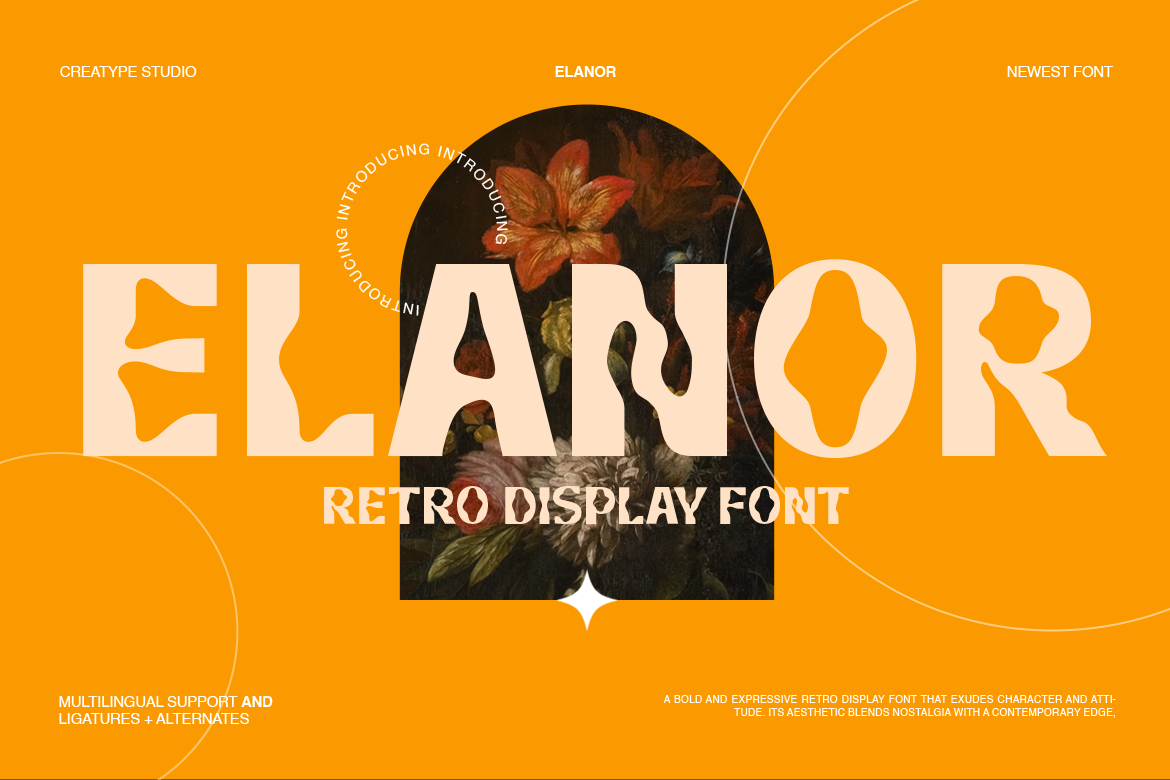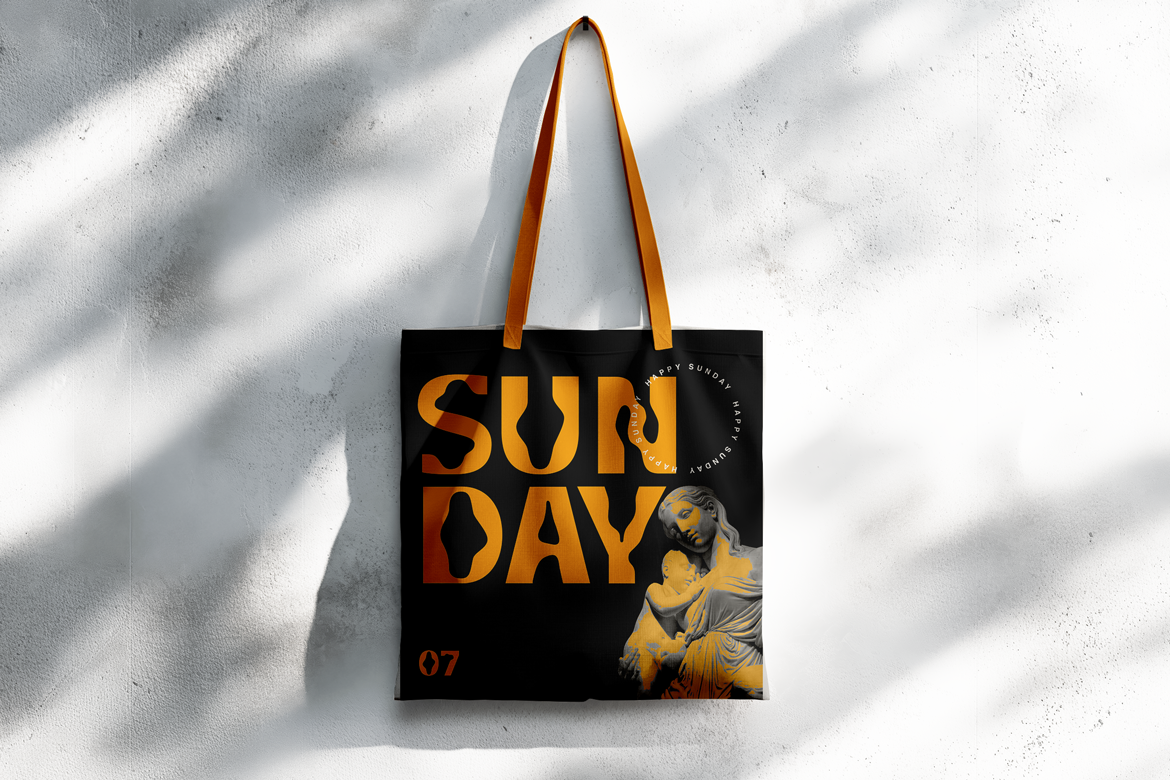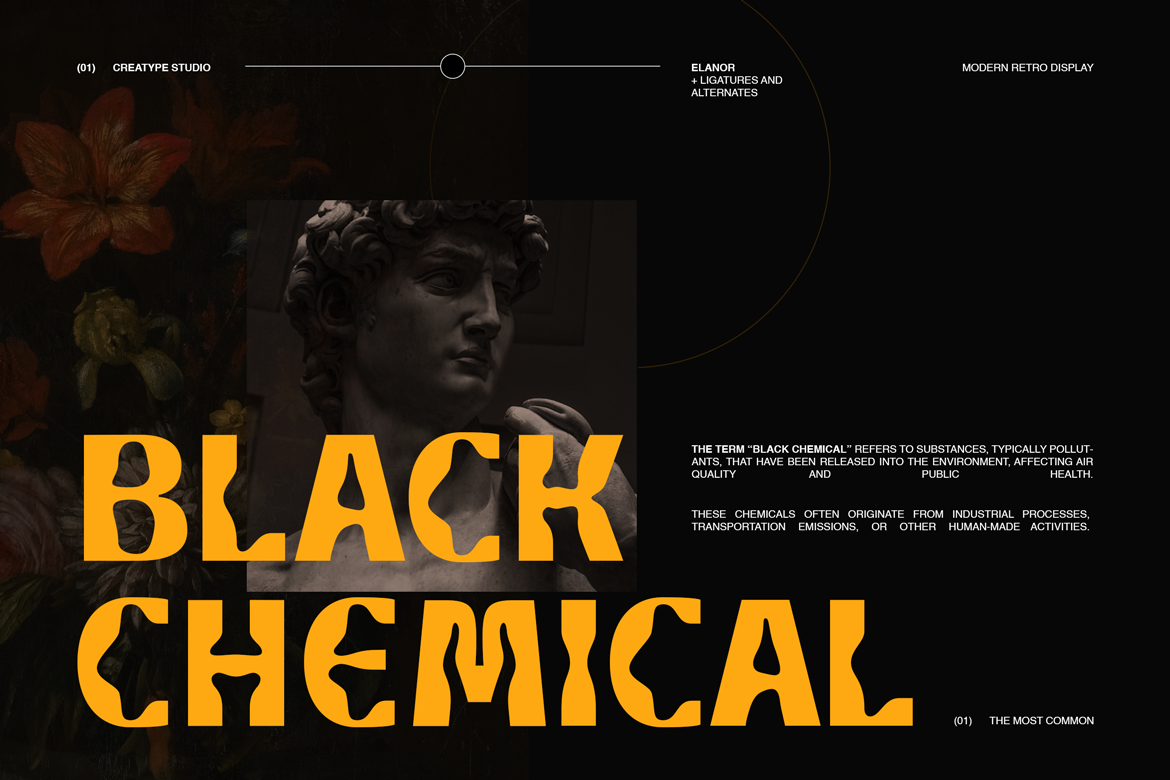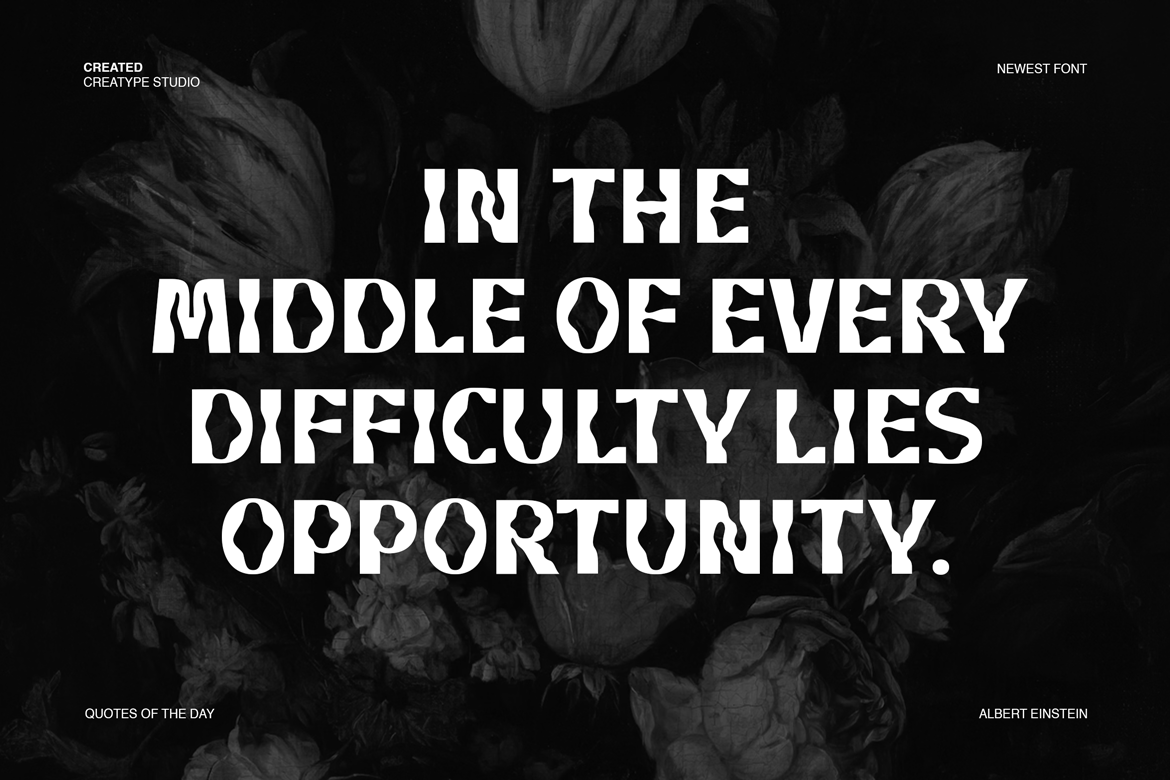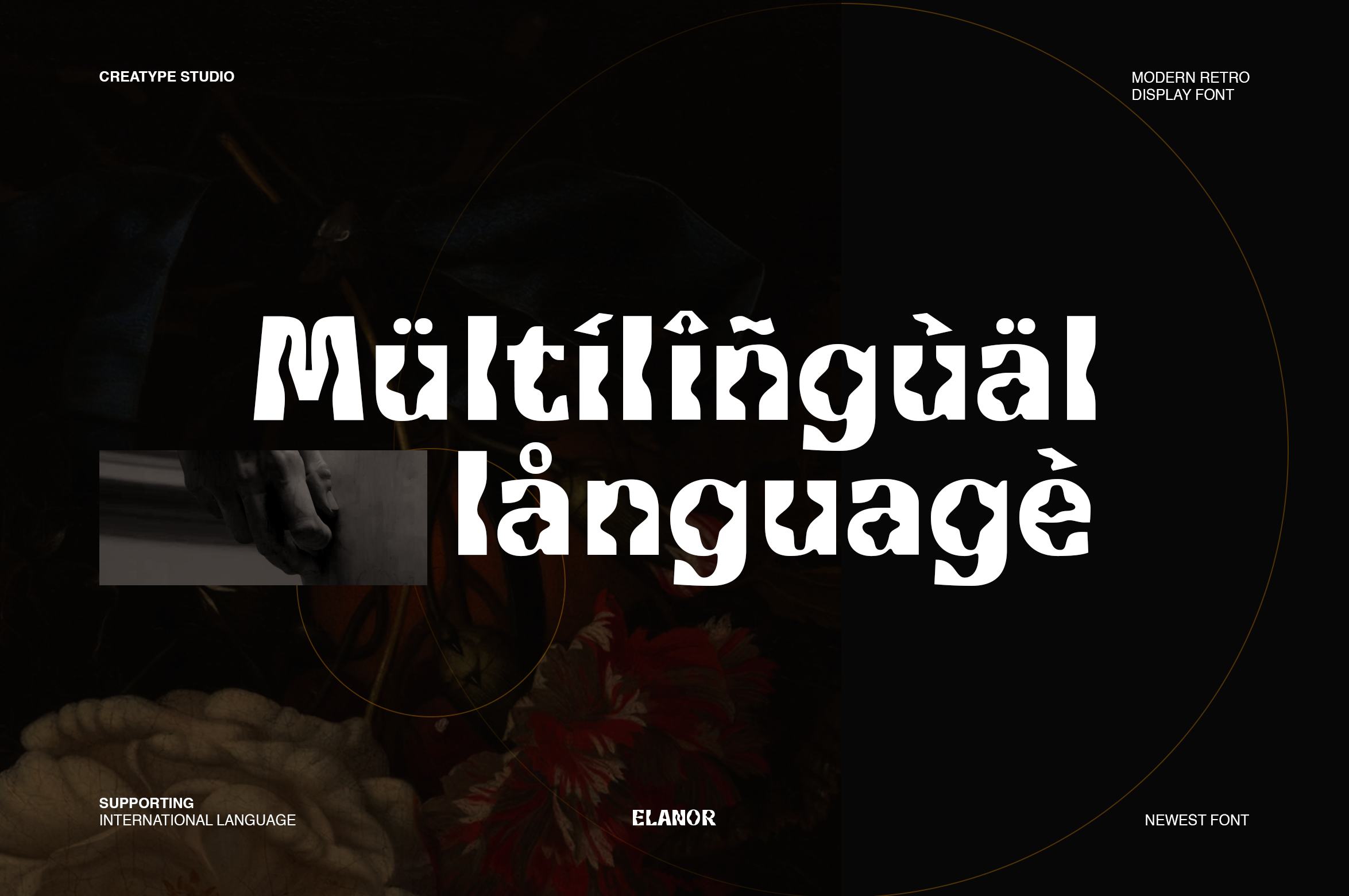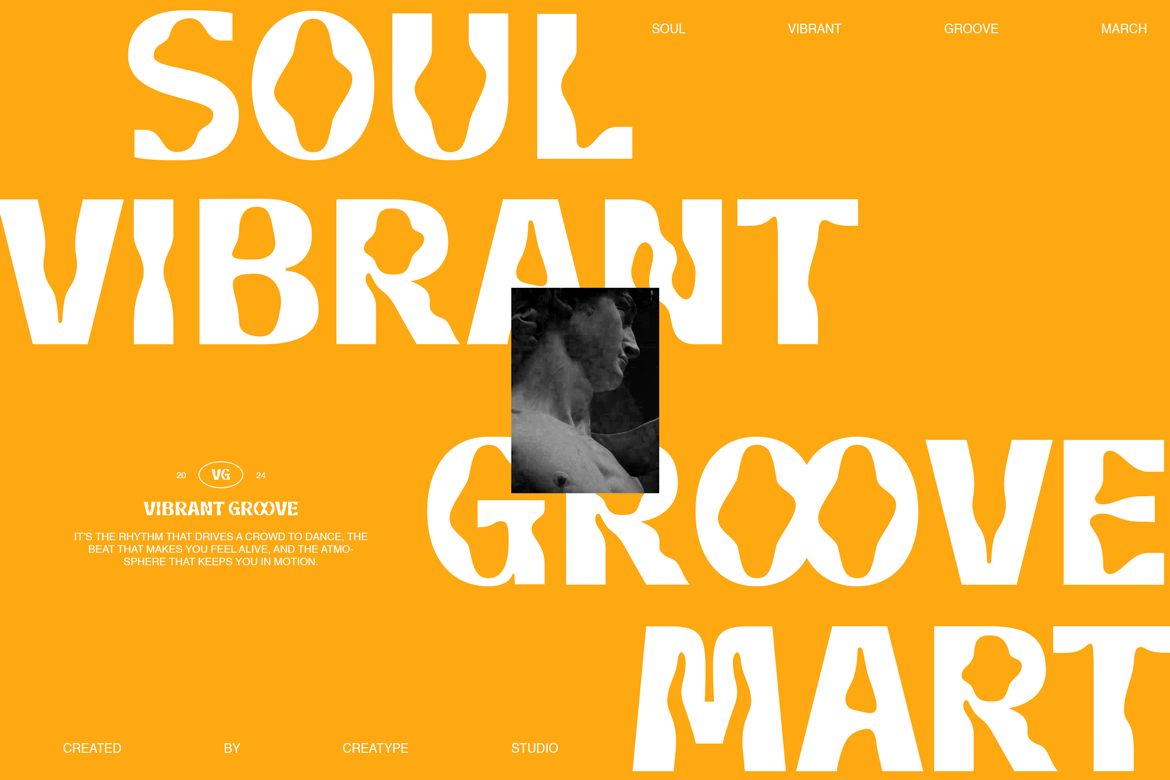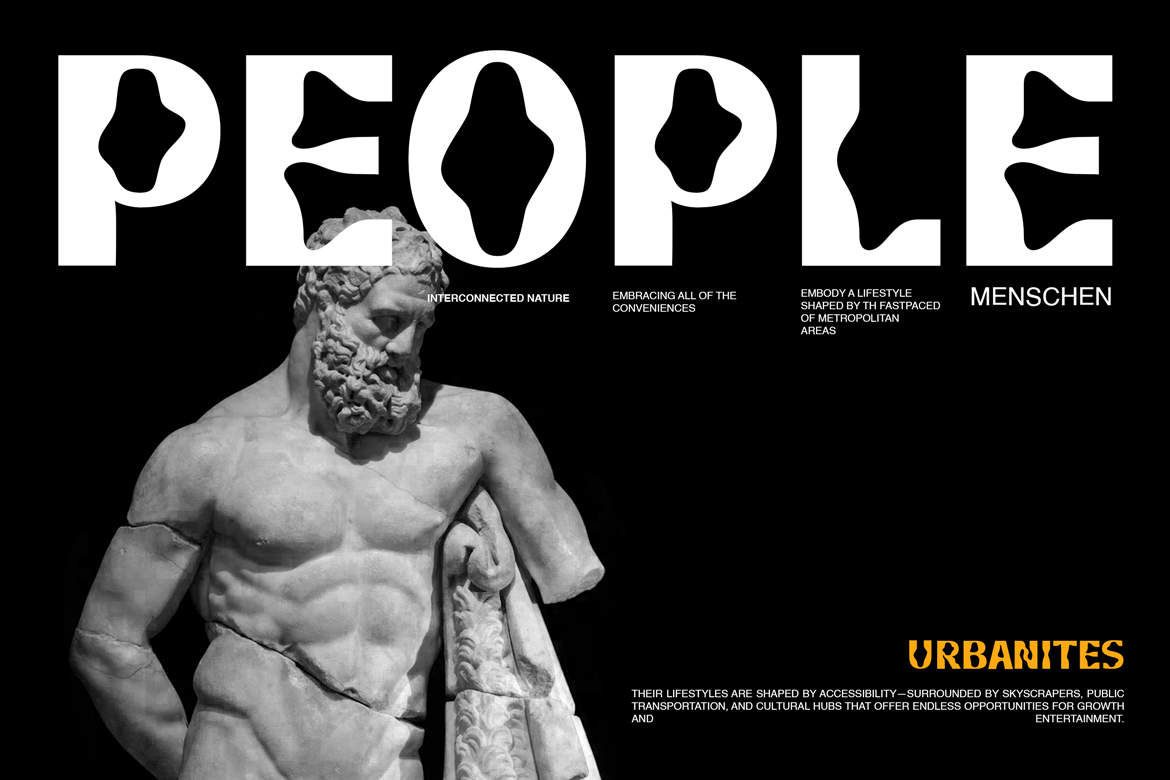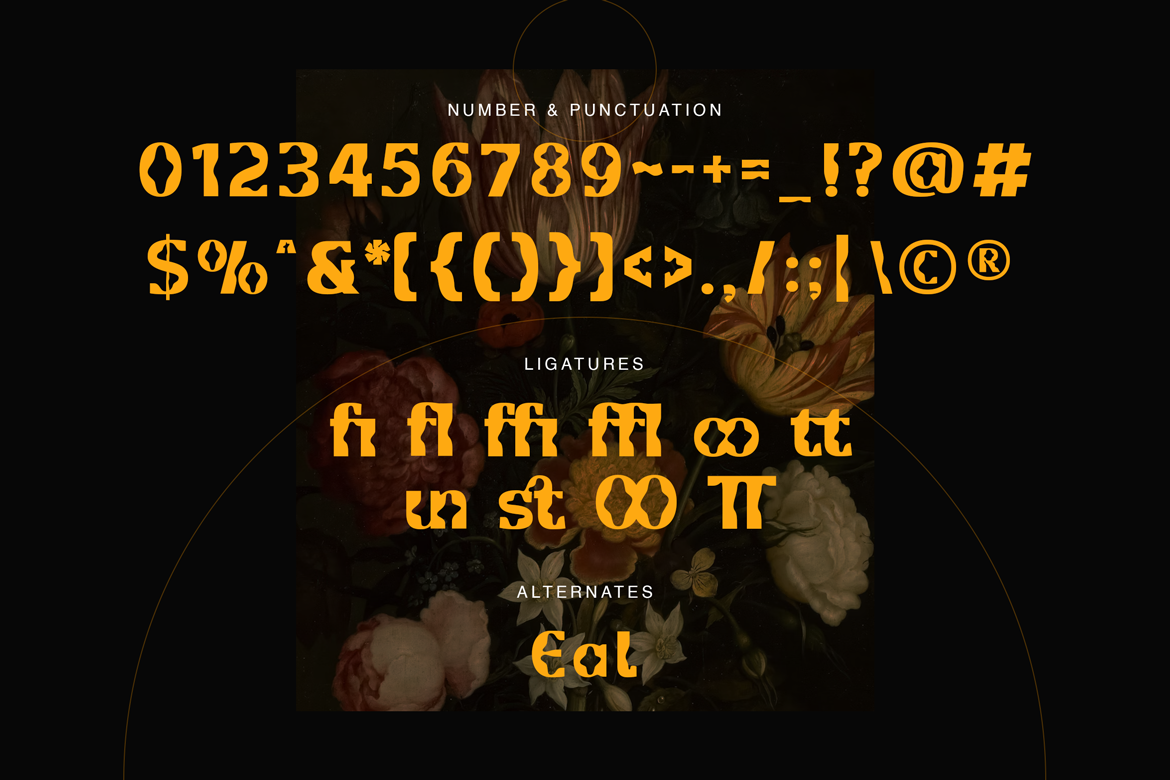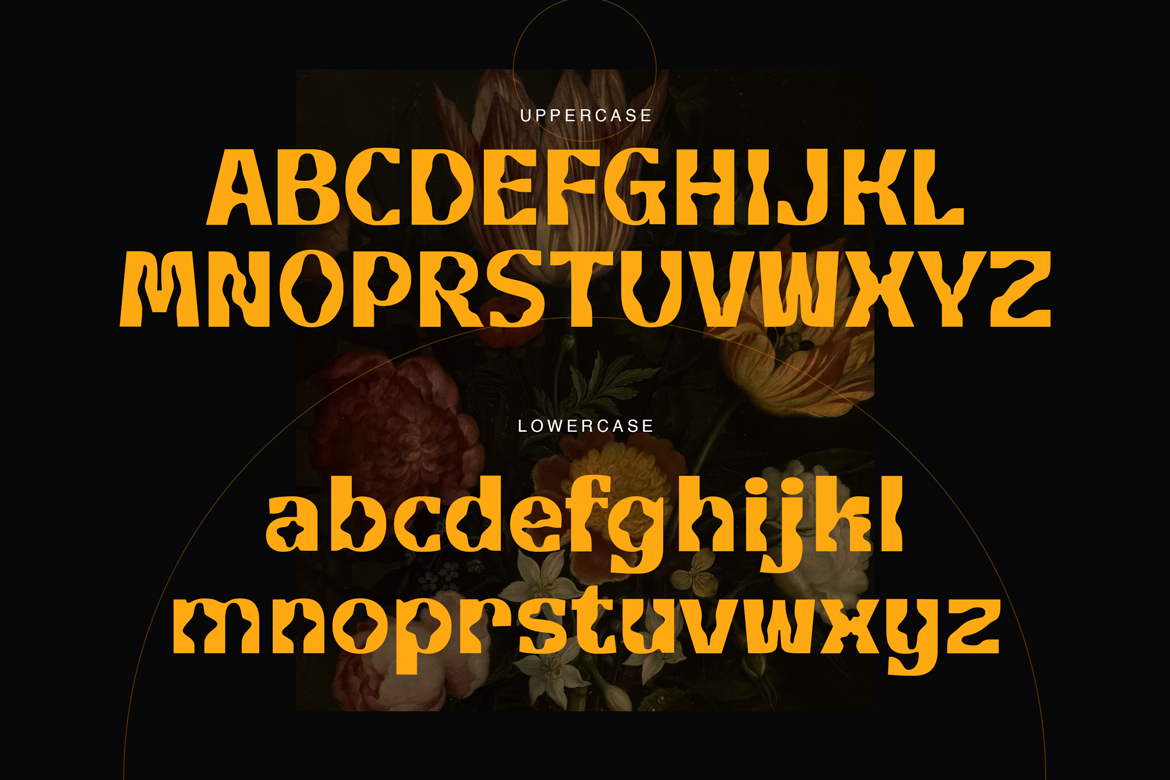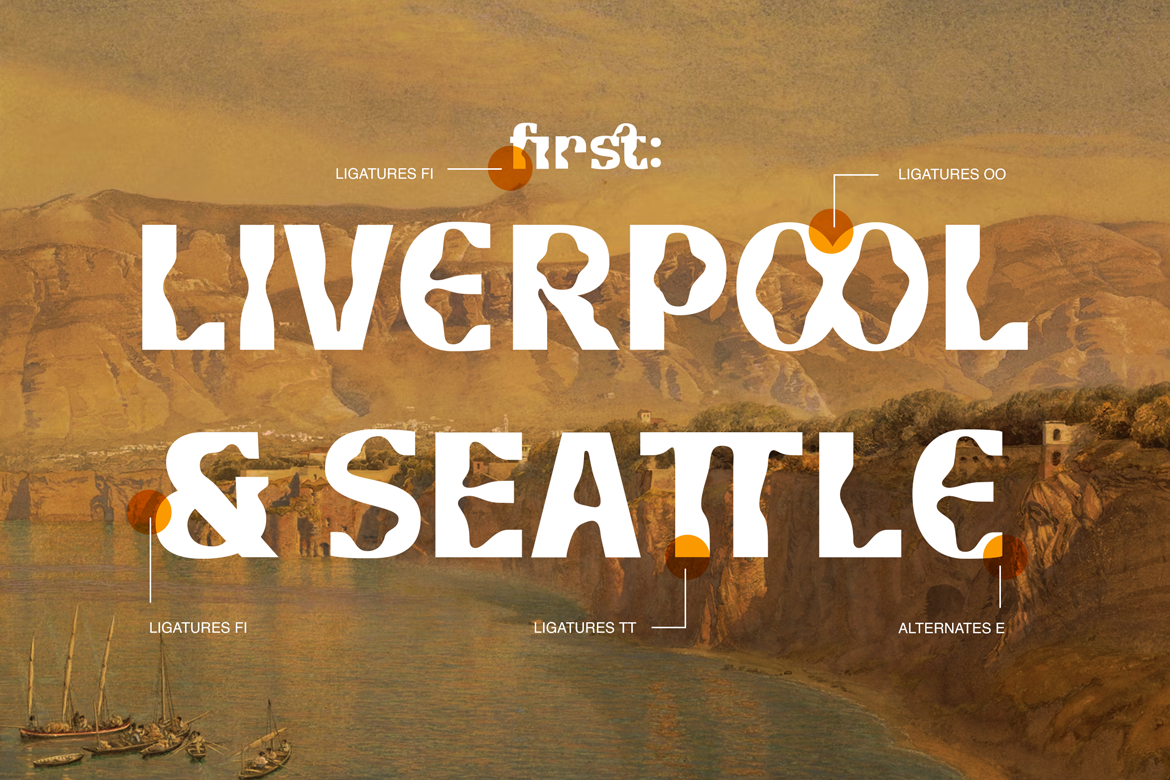
Introducing Elanor: A Retro Display Font Full of Character
Step into a world of bold design with Elanor Retro Display, a retro display font that exudes personality, creativity, and a nostalgic charm. Perfect for adding an expressive touch to your designs, Elanor brings a dynamic energy that’s both captivating and versatile.
From striking headlines to unique branding projects, this font’s aesthetic blends vintage vibes with a contemporary edge, making it ideal for everything from posters to modern packaging. Let Elanor be the standout element in your creative work.
- Ligature, Alternate & Swashes
- Fonts include multilingual support for; Afrikaans, Albanian, Czech, Danish, Dutch, English, Estonian, Finnish, French, German, Hungarian, Italian, Latvian, Lithuanian, Norwegian, Polish, Portugese, Slovak, Slovenian, Spanisch, Swedish.
Elanor Retro Display